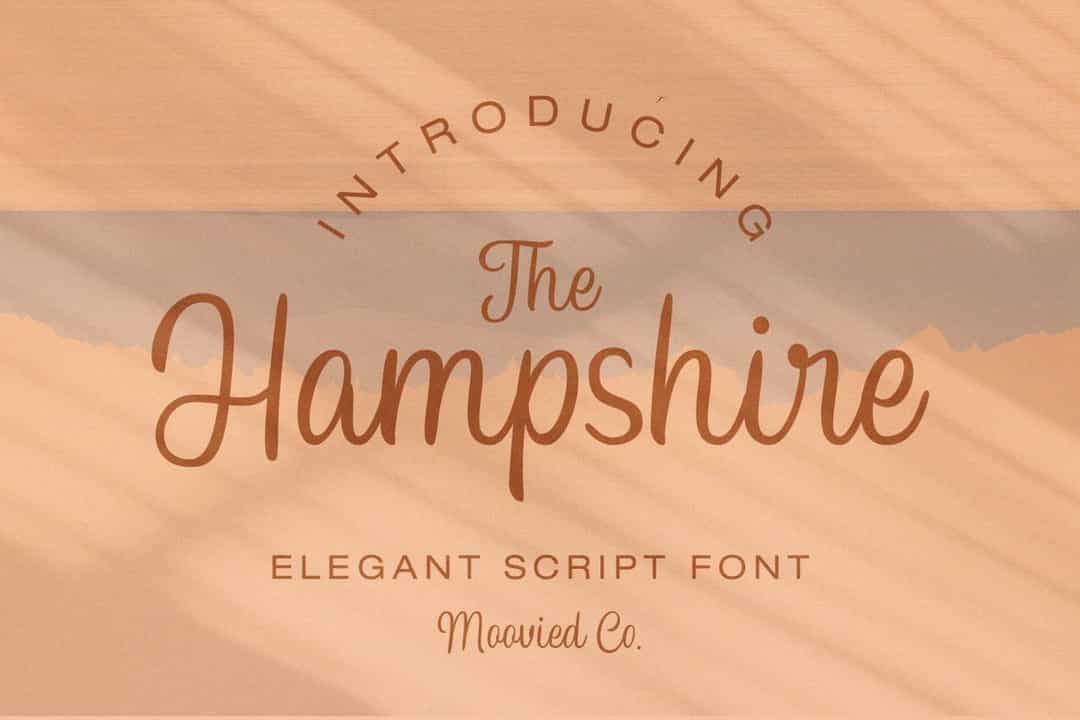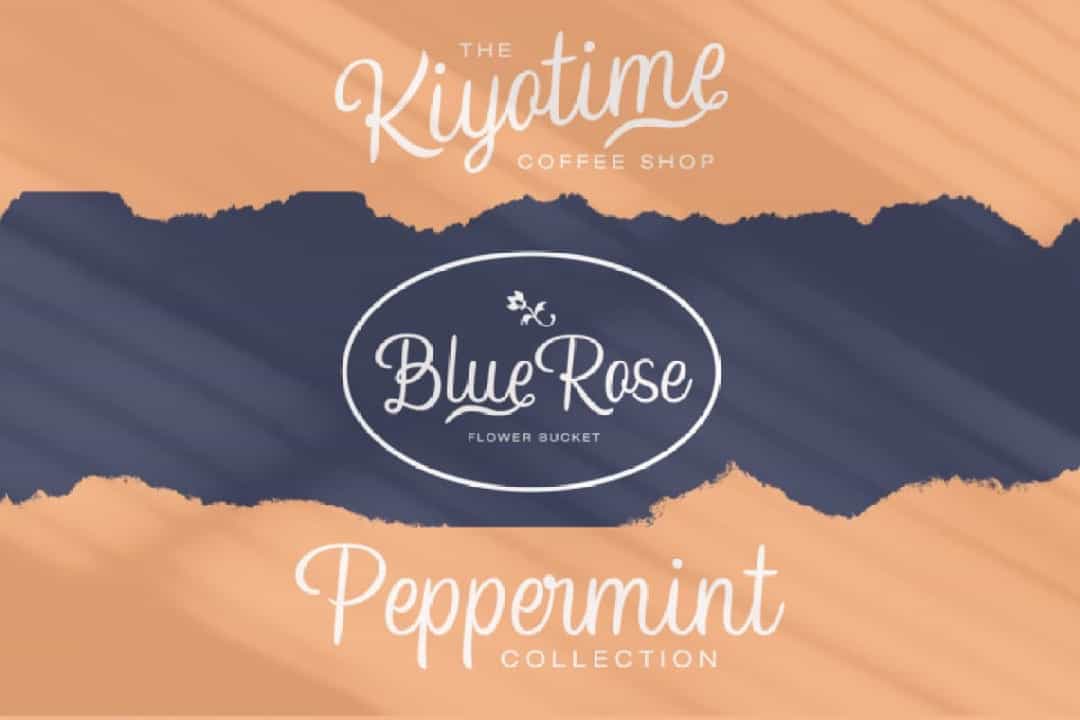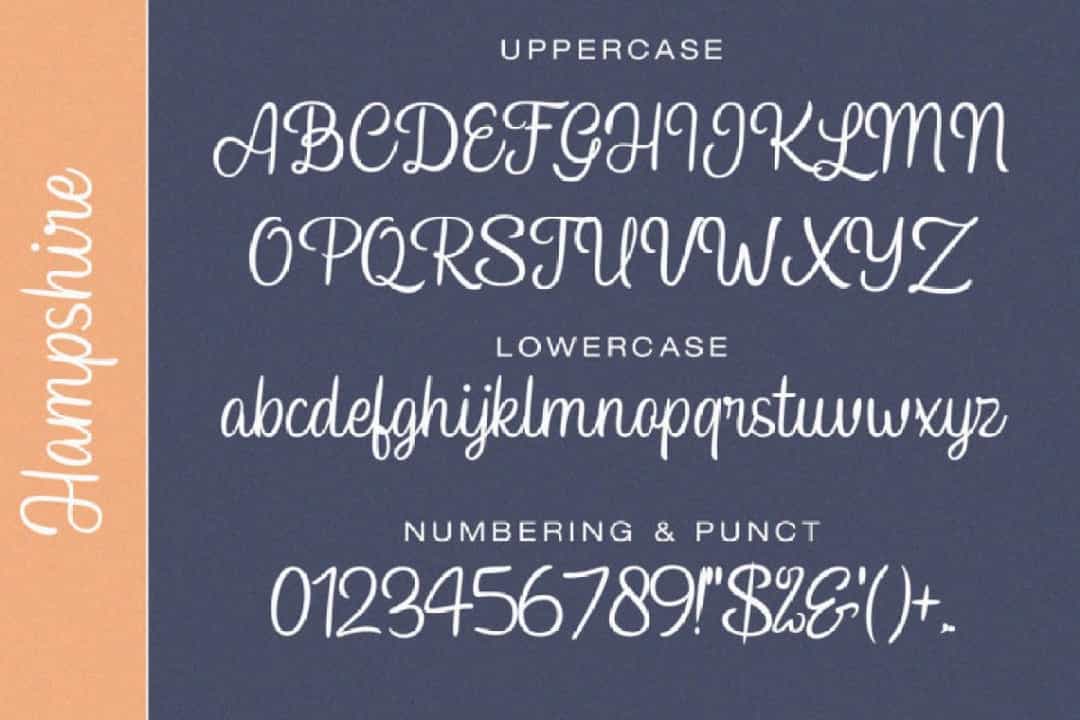
Hampshire is a classy handwritten script brush font that can be effectively used for the design of various prints. Used in its original flow and style, Hampshire is ideal for printing, logos, branding invitations and wedding stationery, social media postings, ads packaging products as well as product labels plus photography watermarks for special events or any other use.